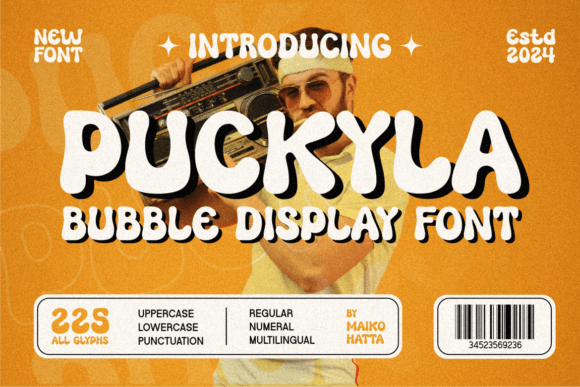
Puckyla: The Friendly Display Font for Scroll-Stopping Brand Content
Puckyla is a display font that has round and wide letter shapes with curved corners, giving a soft and friendly impression. Because of this, this font is often chosen for designs aimed at children or family-oriented brands seeking to build immediate trust. In the fast-paced world of digital marketing, where users scroll through hundreds of images in seconds, your typography must do more than just convey text; it must evoke emotion. Puckyla delivers exactly that by combining approachable aesthetics with high visual impact, making it an essential asset for social media managers and campaign designers who need to capture attention without sacrificing readability.
Why Puckyla Creates Instant Engagement on Social Media Feeds
When you integrate Puckyla into your social media graphics, the rounded geometry of these Fonts immediately signals warmth and accessibility to your audience. Unlike rigid geometric typefaces that can feel corporate or cold, Puckyla's curved corners soften the message, encouraging users to pause their scrolling. This is particularly effective for Instagram posts, Pinterest pins, and Facebook ads where emotional connection drives engagement. By using Puckyla for headlines in your promotional content, you create a visual hierarchy that guides the eye naturally toward your call-to-action. The font's wide letter shapes ensure that even short text remains legible against busy backgrounds, allowing your brand voice to shine through in a sea of noise.
Puckyla for Children's Products and Family Brand Campaigns
Because of this, this font is often chosen for designs aimed at children or parents looking for a gentle, trustworthy aesthetic. If you are launching a new line of toys, educational apps, or family services, Puckyla serves as a perfect bridge between professional design and playful charm. Its display characteristics make it ideal for large-scale branding elements like logo marks, product packaging, and store signage. When used in a campaign targeting families, the soft impression of Puckyla reduces cognitive load, making your message feel inviting rather than demanding. This psychological comfort translates directly into higher click-through rates and better conversion rates for products that rely on parental approval.
Optimizing Digital Ads and Email Headers with Puckyla
For email marketing campaigns and digital banners, Puckyla ensures your subject lines and headers stand out while maintaining a cohesive brand identity. As a premium display font, it excels in scenarios where space is limited but impact is critical. You can use Puckyla to announce seasonal sales, flash promotions, or webinar invitations, knowing that its clear structure prevents text from becoming blurry or illegible on mobile devices. The wide proportions of the letters allow for generous tracking (spacing), which enhances readability on small screens. When paired with a clean sans serif font for body copy, Puckyla creates a balanced contrast that looks polished and intentional, elevating the perceived value of your offer.
Puckyla for YouTube Thumbnails and Video Covers
Content creators know that a thumbnail is the first impression a viewer gets before they decide to watch a video. Puckyla offers the boldness required to grab attention in a crowded YouTube feed while retaining the friendly vibe that keeps viewers engaged. Using Puckyla for titles on Reels covers or video thumbnails helps establish a consistent visual language across your channel. The font's unique curves differentiate your content from generic templates, signaling to your audience that your brand pays attention to detail. Whether you are creating a series of educational videos or entertaining vlogs, Puckyla adds a layer of personality that makes your content feel more human and relatable.
Building Visual Consistency Across Your Brand Identity
Maintaining visual consistency is crucial for long-term brand recognition, and Puckyla provides the versatility needed to unify your marketing assets. From website landing pages to digital brochures, this font can serve as your primary headline typeface, ensuring that every touchpoint feels connected. Its modern yet approachable style fits well within contemporary design trends, allowing brands to appear up-to-date without feeling trendy or fleeting. By standardizing the use of Puckyla across all public-facing materials, you reinforce your brand's core values of friendliness and reliability. This strategic application of fonts helps build a memorable brand identity that resonates with your target demographic over time.
Puckyla for Event Banners and Promotional Graphics
Whether you are designing a banner for a live event, a workshop, or a virtual summit, Puckyla brings a sense of excitement and inclusivity to your visuals. The font's round shapes create a welcoming atmosphere that encourages participation and attendance. For event organizers, using Puckyla for key dates, speaker names, or ticket information ensures that essential details are both attractive and easy to read. It works exceptionally well for limited-time offers and countdown timers, where the urgency of the message needs to be softened by a friendly tone to avoid alienating potential attendees. The result is a campaign graphic that feels celebratory rather than aggressive.
Practical Pairing Strategies for Modern Design Workflows
To maximize the effectiveness of Puckyla, consider pairing it with a neutral sans serif font for body text or captions. This combination leverages the decorative nature of Puckyla for headlines while ensuring that detailed information remains crisp and readable. For a more editorial look, you might experiment with a classic serif font to add a touch of sophistication, though the contrast should be managed carefully to maintain harmony. Remember that Puckyla is best suited for short text, titles, and callouts; overusing it for long paragraphs can reduce readability and clutter your design. By reserving Puckyla for impactful moments in your layout, you allow its unique character to shine without overwhelming the viewer.
Ensuring Readability on Mobile and Small Screens
In an era dominated by mobile browsing, font choice is a critical factor in user experience. Puckyla's wide letter shapes and distinct curves perform well on smaller displays, preventing text from appearing cramped or indistinct. However, when designing for mobile-first campaigns, always test your layouts at actual screen sizes to ensure the font maintains its integrity. The soft edges of Puckyla help prevent harsh visual artifacts that can occur with thin or complex typefaces on low-resolution screens. By prioritizing readability alongside aesthetics, you ensure that your marketing messages are accessible to everyone, regardless of the device they are using.